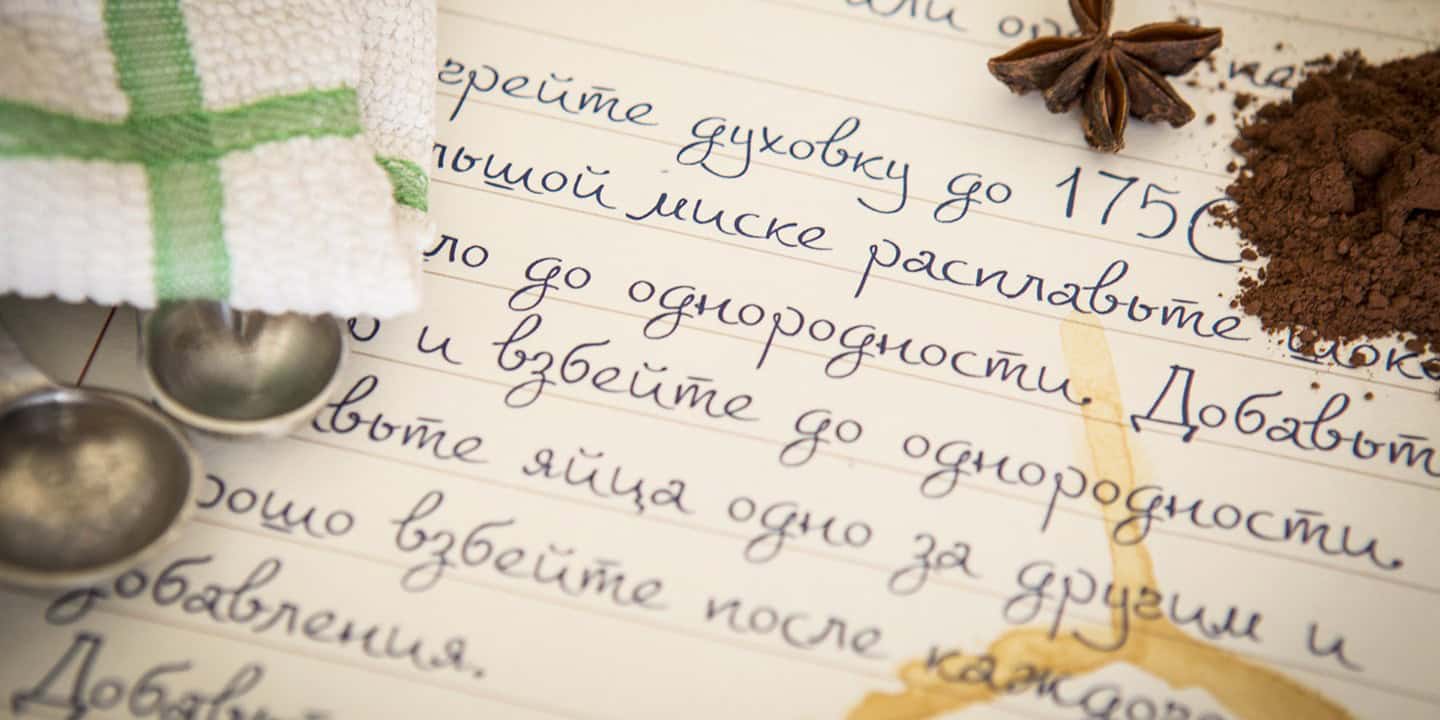
Emanate the freedom of expression with Lawless Font Pro
Express Yourself Freely with Lawless Font Pro
With its bold and compelling style, the Lawless Font Pro effortlessly stands out in any context. This font carries a strong vibe of individuality and freedom, which makes it an excellent choice for innovative and challenging projects. Whether you’re designing posters, book covers, or website banners, the Lawless Font Pro will ensure your work necessitates a second look.
Features of Lawless Font Pro
Derived from Western styles, this unique and expressive font offers several distinctive features:
- Bold and Assertive: Lawless Font Pro features a heavy weight and solid structure, adding depth and substance to your designs.
- Versatile Use: It’s perfect for a wide range of typography projects including posters, signage, advertising, branding, packaging, and more.
- High Contrast: This font includes strong thick-thin contrasts in its design that allows your text to be highly readable even from a distance.
Convey the Right Message with Lawless Font Pro
The Lawless Font Pro is not merely a font, it’s a step towards self-expression and innovation. With its unique style, it can help your brand or message stand out amidst the sea of sameness and ingrained stereotypes.
Make your designs speak louder and clearer with Lawless Font Pro. Unleash your creativity in every stroke. Don’t underestimate the potential of this audacious font. It will surely leave a long-lasting impression, redefining the dimensions of your design templates.